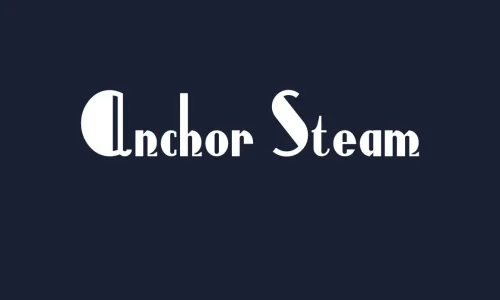
AR Christy Font is a bold and block-style type of design. This font gives quirky touch with refined sides. This font style design falls under the category of display typeface. This Font comes in one regular style design. The font-style design was first designed and created by EnStep Incorporated.
This Font style design gives a marvelous appearance to your design. Because it has a clear character that is easy to see and stylish characters that fall completely according to your design. It consists of more than 150 unique characters and all the necessary glyphs.
AR Christy Font Family
| Name | AR Christy Font |
| Designer | EnStep Incorporated |